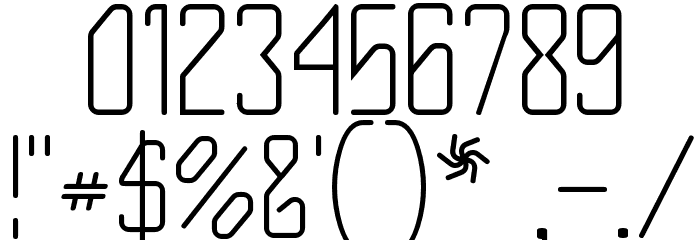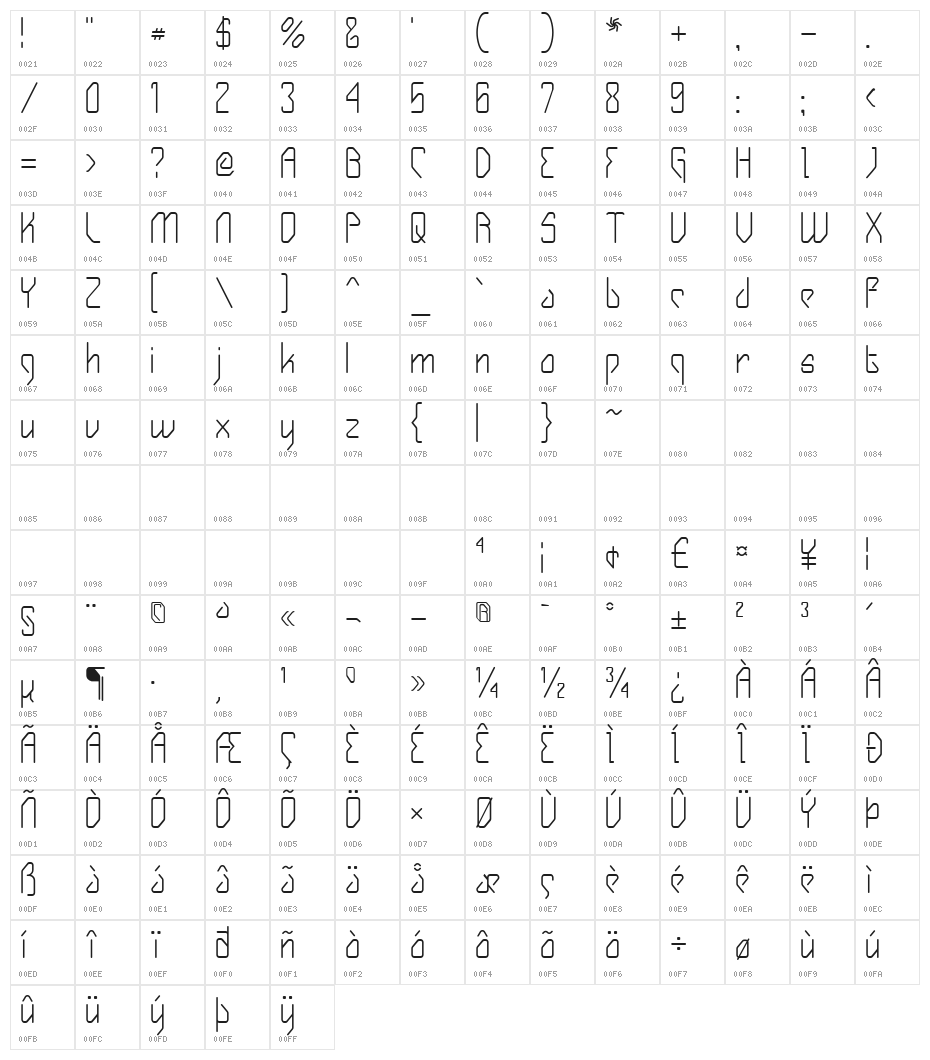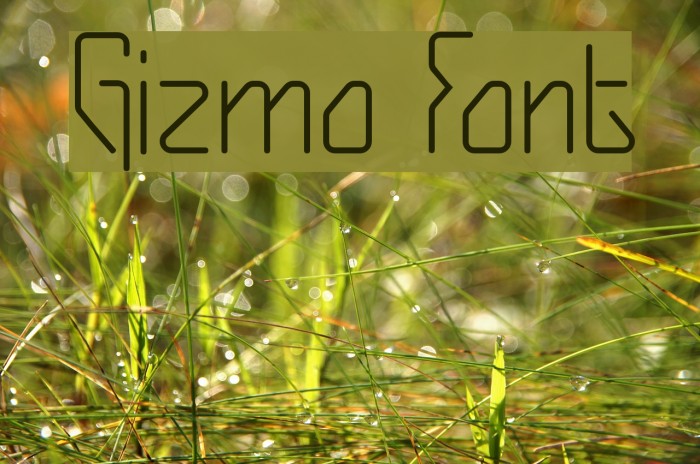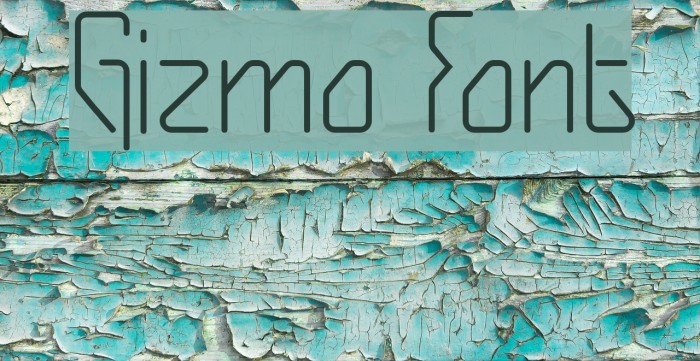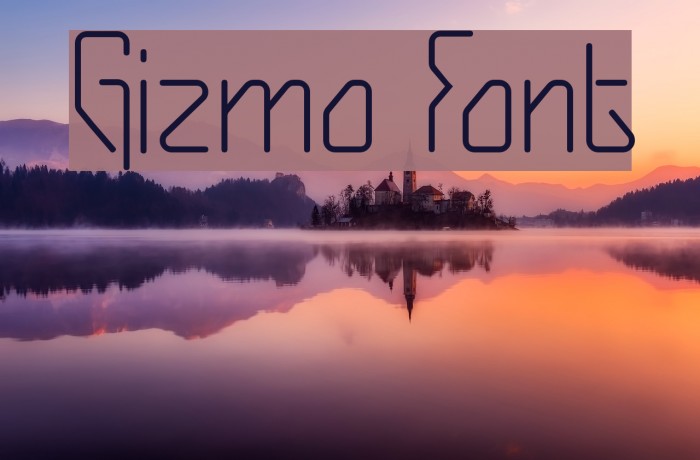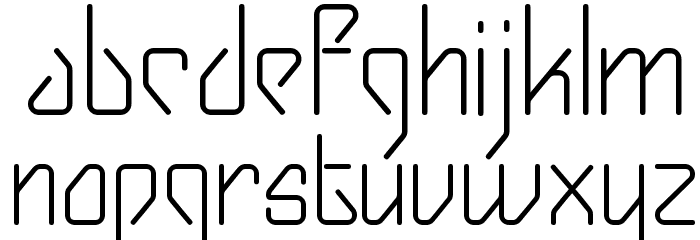
Gizmo Font
This font features a unique, futuristic design with geometric shapes and clean lines. The characters are composed of straight lines and sharp angles, giving it a modern and technical appearance. The uppercase and lowercase letters maintain a consistent style, with a uniform stroke width that adds to its sleek look. The numerals and special characters follow the same design principles, ensuring a cohesive appearance across all glyphs. This font is ideal for projects that require a contemporary and innovative touch.
Proposed ProjectsIdeal for tech branding, sci-fi posters, modern logos, and digital interfaces.